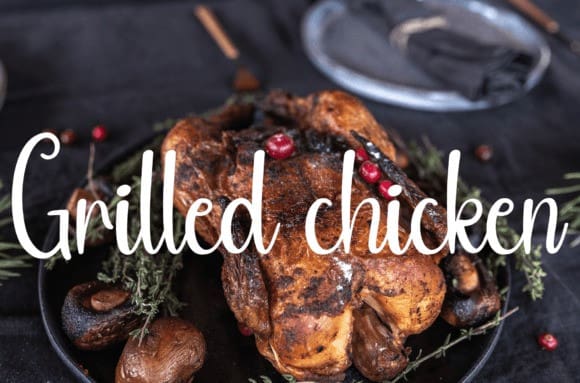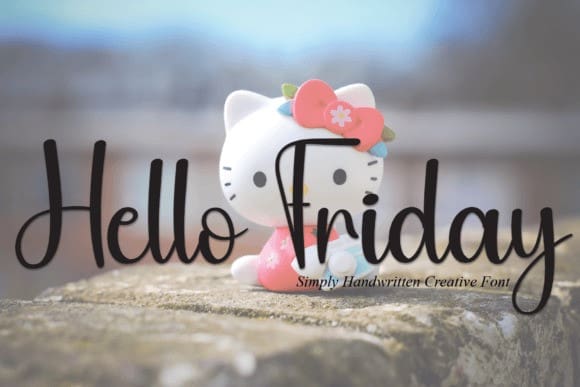
Hello Friday Font
Hello Friday Font is a sweet and friendly handwritten font. Cute and fun, this font is ideal for writing wedding invitations, cards, or any other design that might need a fun touch!